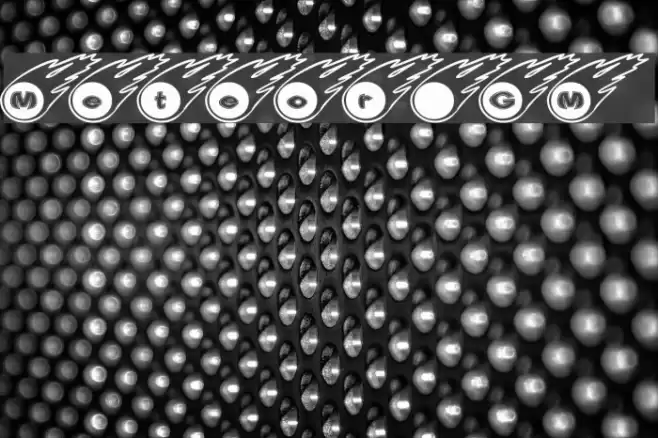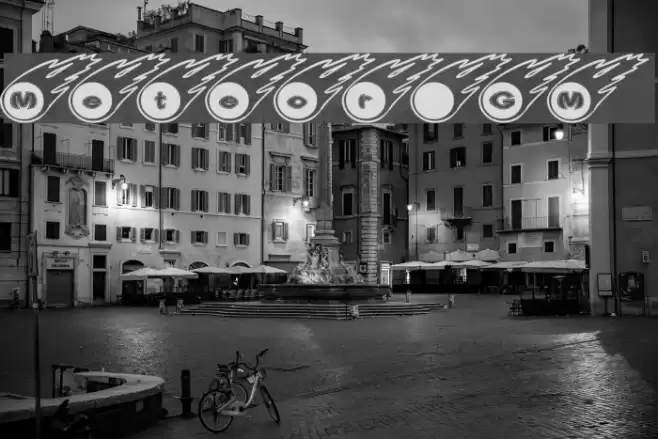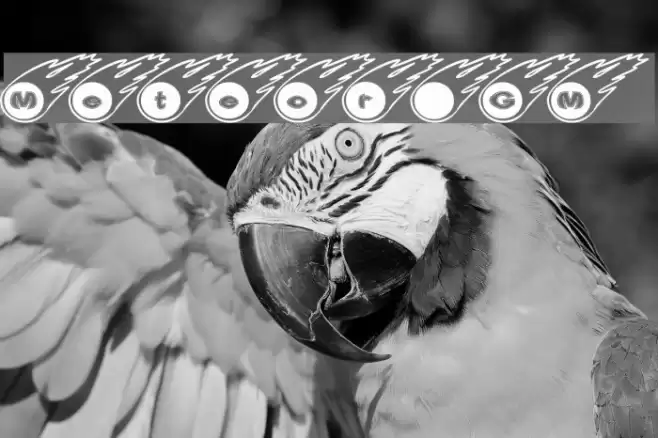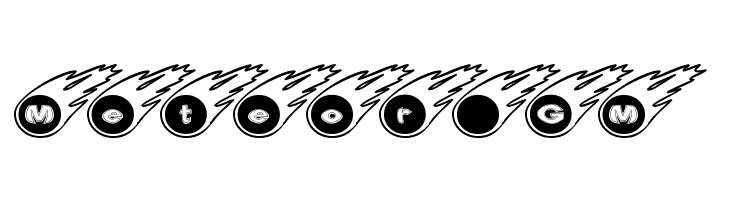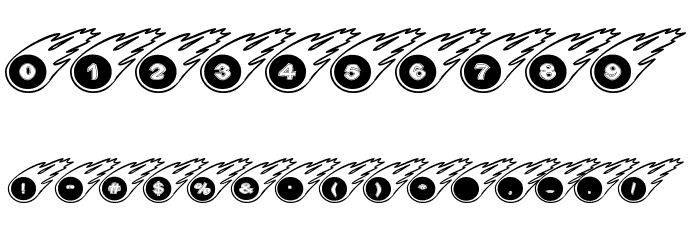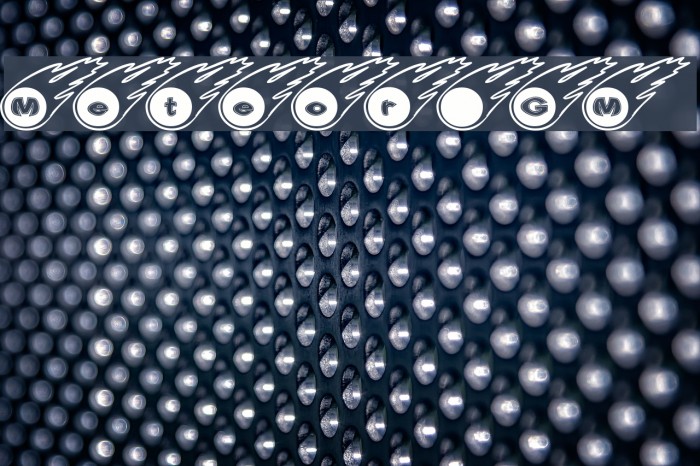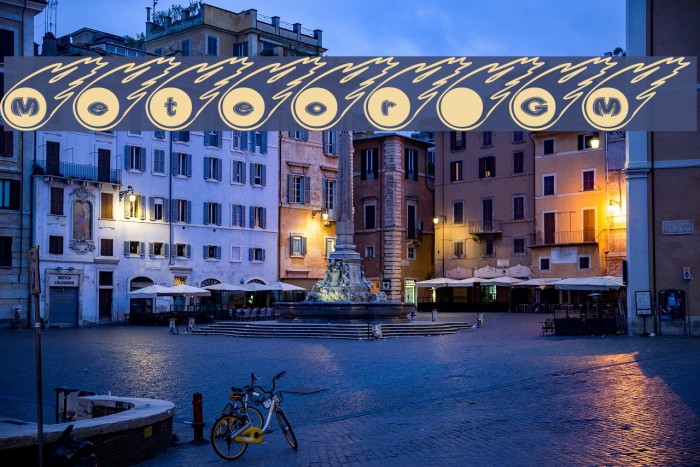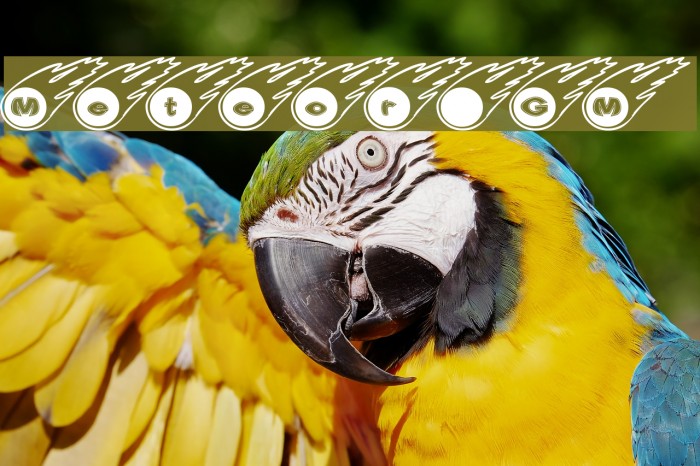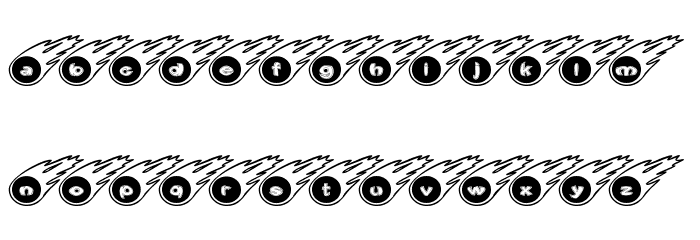
Meteor GM Font
Meteor GM Description
This font features a dynamic and energetic design, with each character encapsulated in a circular form that is accompanied by a stylized meteor trail. The bold and playful aesthetic is enhanced by the contrast between the solid black circles and the white letters, creating a striking visual impact. The characters are evenly spaced within their circular boundaries, ensuring readability while maintaining the decorative theme. The unique meteor trail adds a sense of motion and excitement, making this font ideal for projects that require a lively and eye-catching style.
A bold, dynamic font with characters in circles and meteor trails, perfect for energetic designs from Decorative fonts.
- Proposed Projects: Ideal for children's book covers, event posters, video game titles, and any project needing a playful and dynamic touch.